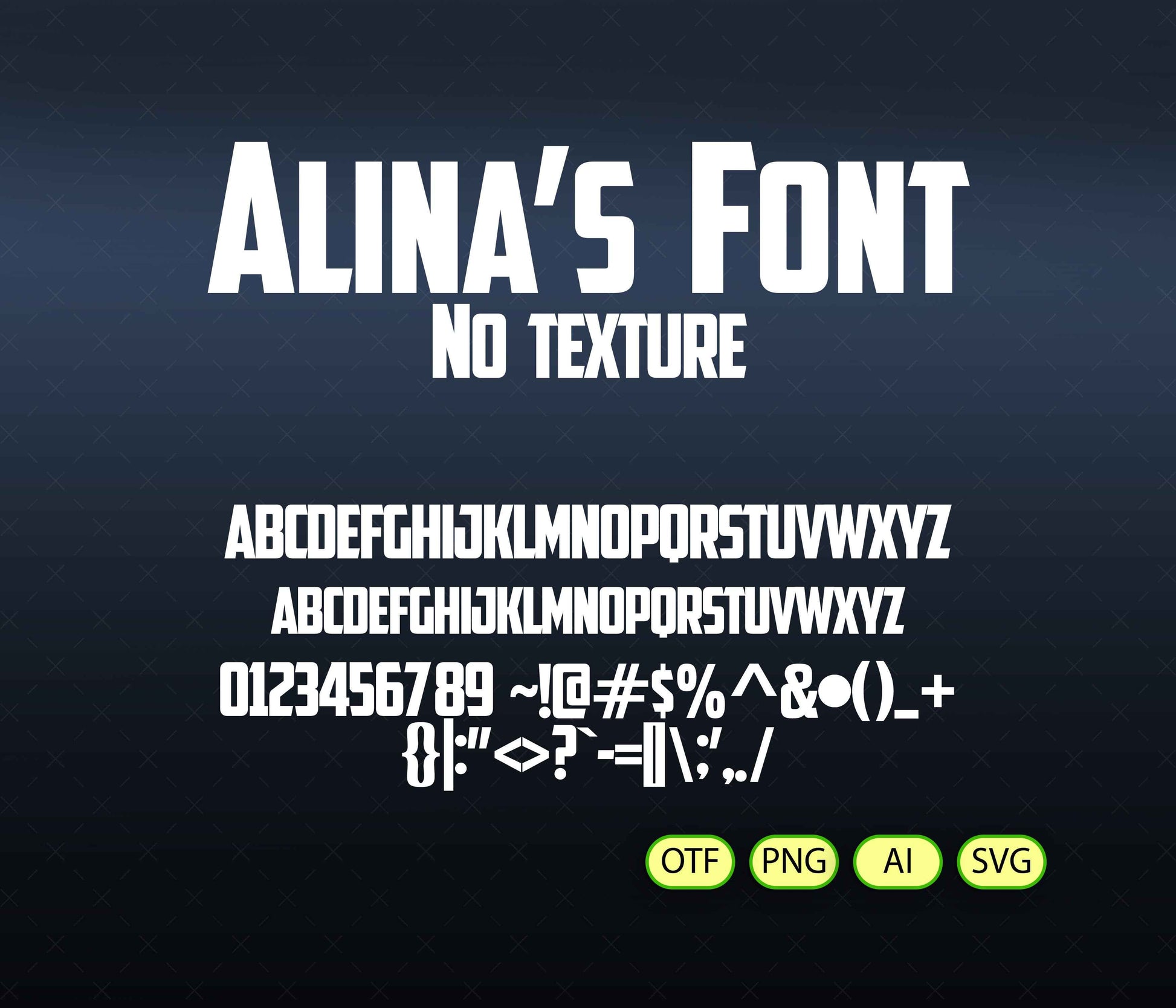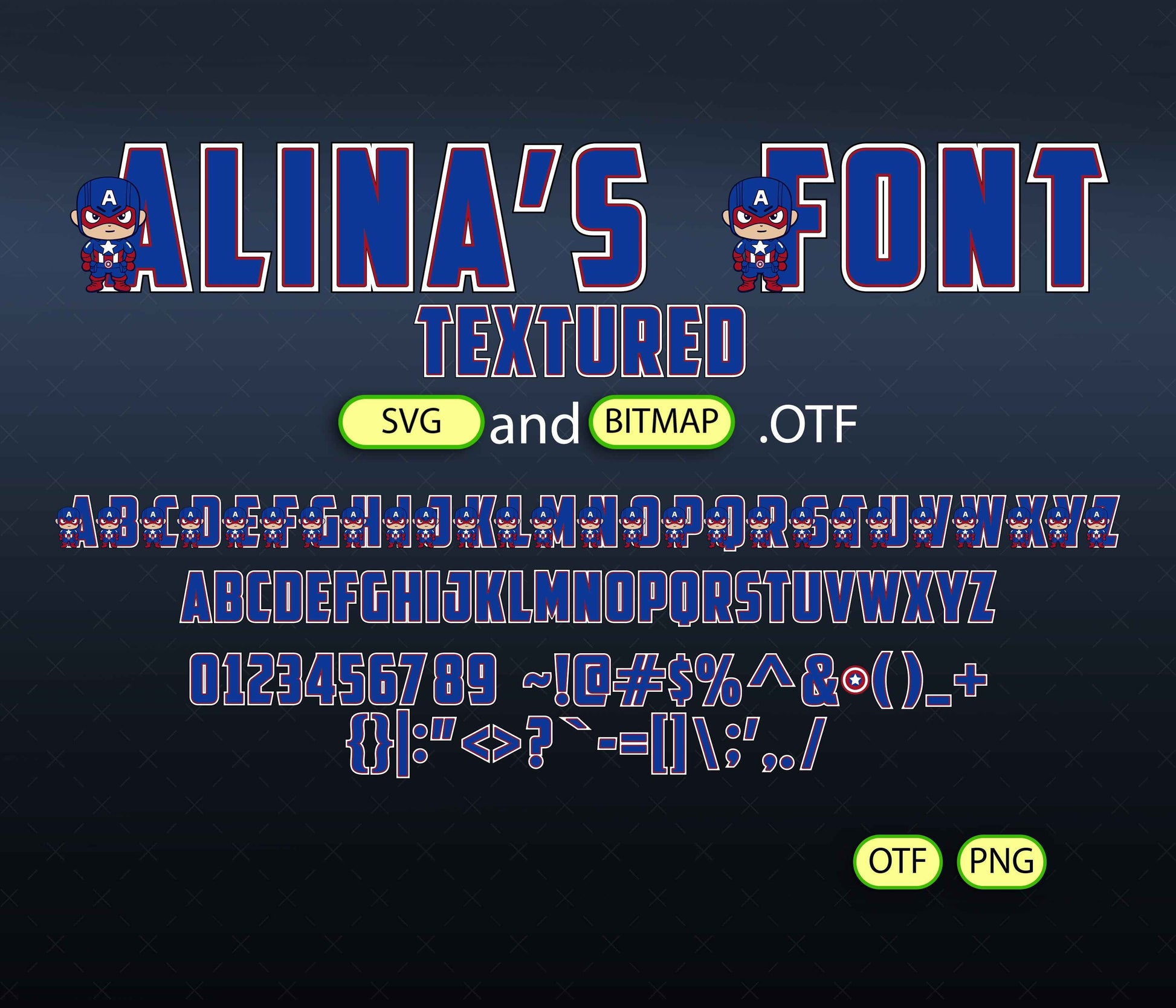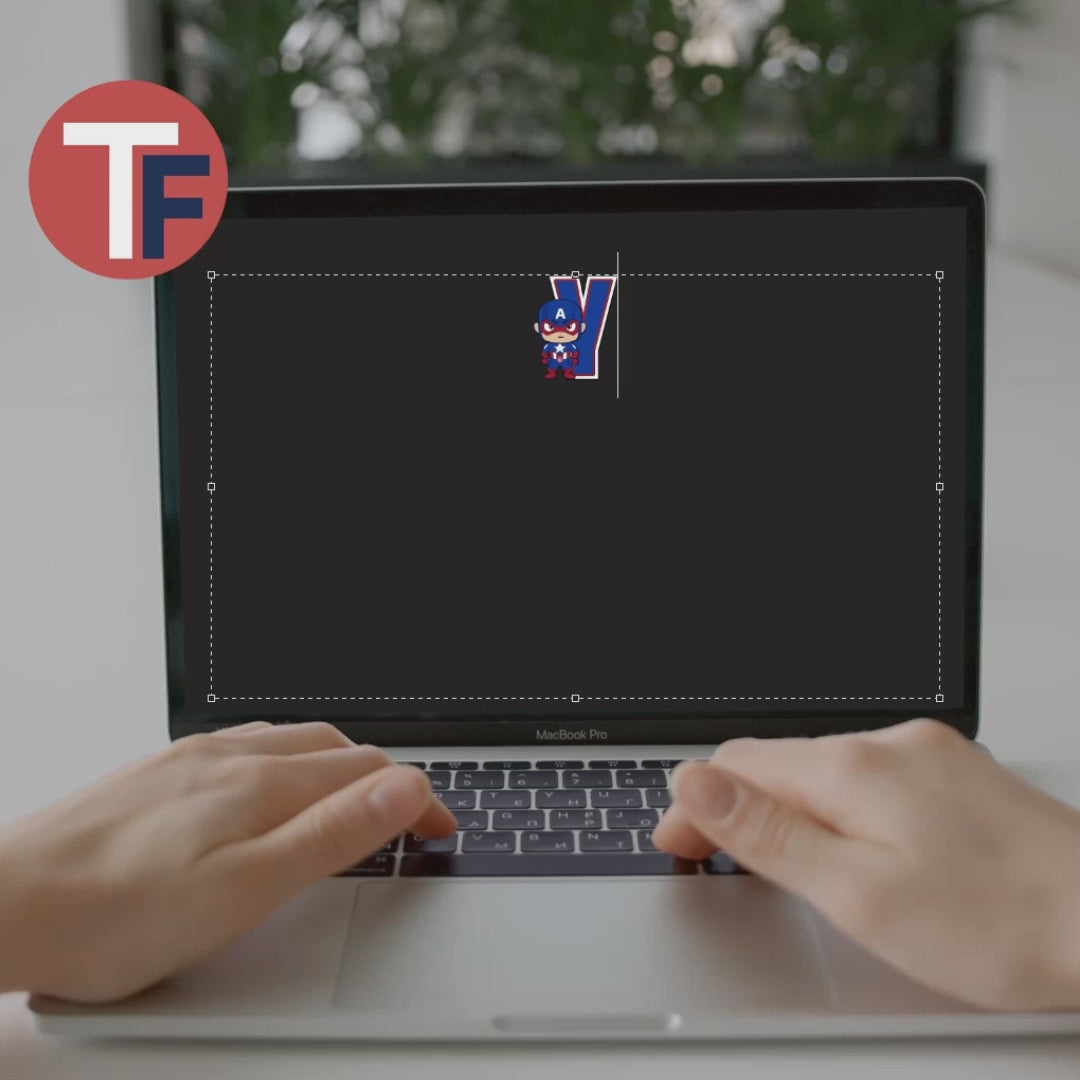
Patriot Hero Font Textured
Patriot Hero Textured Font: The Spirit of a Shield-Bearing Defender
Dive into the world of heroism and valor with our Patriot Hero font, a homage to an iconic shield-bearing superhero known for his unwavering sense of justice and bravery. This font embodies the essence of a star-spangled defender, from the boldness of his shield to the integrity of his character. Each letter and symbol is infused with the qualities that make this hero a symbol of hope and leadership.
What Font is Patriot Hero Font?
Picture a typeface that resonates with the strength and determination of a first-line defender. Our font is meticulously designed to mirror the distinctive and powerful style associated with a patriotic superhero, from comic books to the big screen. Featuring an extensive character set, including alphabets, numbers, and special symbols, it offers a comprehensive toolkit for any design that seeks to channel the superhero's iconic presence.
What Can You Do With Patriot Hero Font?
The Patriot Hero font is highly versatile and customizable, suitable for various creative and commemorative applications:
1. Comic Book and Fan Art: Ideal for creating artwork and digital content celebrating a heroic legacy.
2. Movie-Themed Events: Craft invitations and decor for superhero-themed parties or movie screenings.
3. Custom Apparel: Design clothing and accessories that fans of heroic franchises will cherish.
4. Gaming and App Design: Enhance the visual appeal of superhero-themed games and applications.
5. Educational Materials: Use in history or cultural studies materials referencing national icons.
6. Branding and Promotions: Incorporate into branding for businesses seeking a strong, reliable image.
7. Social Media Campaigns: Create standout posts and marketing materials with a heroic flair.
8. Personalized Stationery: Design stationery for enthusiasts of the superhero genre.
9. Decorative Artwork: Create wall art and prints that embody the spirit of patriotic heroism.
10. Memorabilia and Collectibles: Design unique collectibles for fans and collectors.
The Patriot Hero font is more than just a typeface; it's a celebration of the hero within each of us.